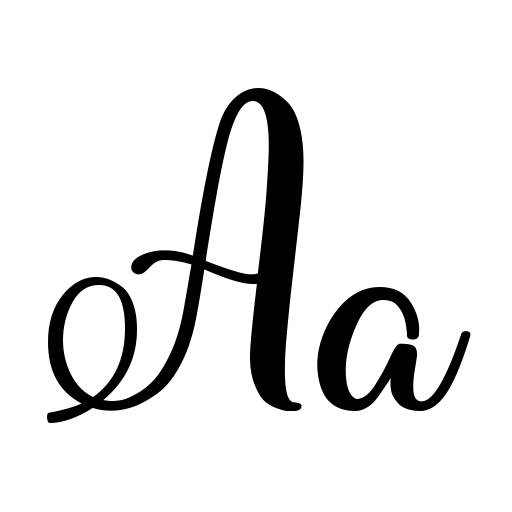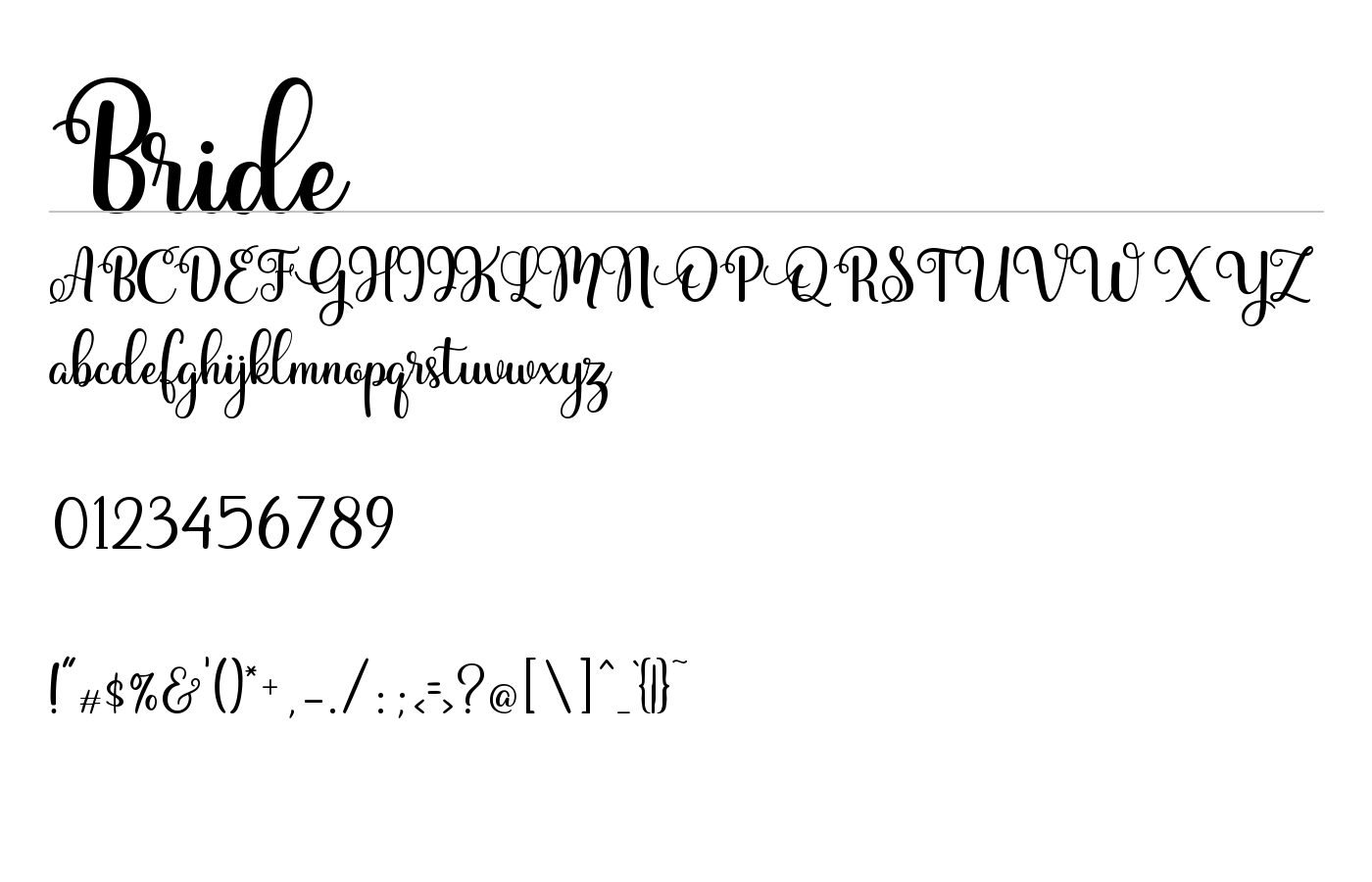
Bride Font is an elegant script typeface that combines flowing, decorative uppercase letters with a refined, slightly condensed lowercase style. Its delicate strokes and graceful curves give it a romantic and sophisticated feel, making it perfect for wedding invitations, luxury branding, and feminine design projects. The font’s charming calligraphic flair adds a touch of warmth and personal style, ideal for headlines or decorative texts where beauty and elegance are key.
Bride Font